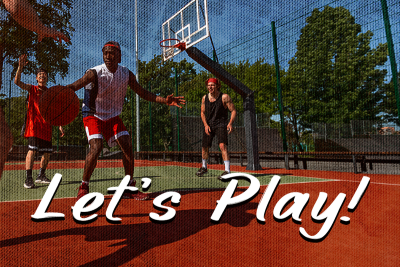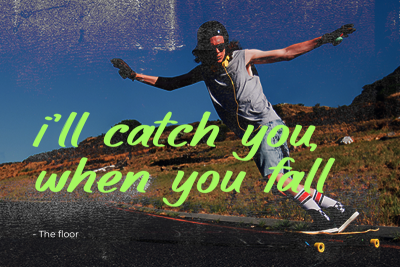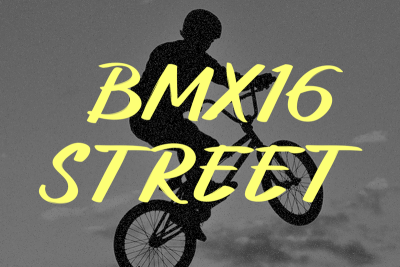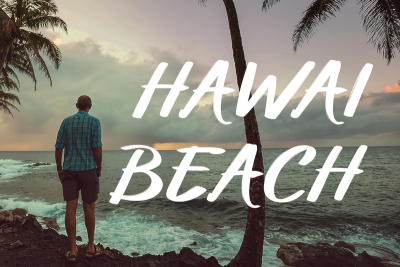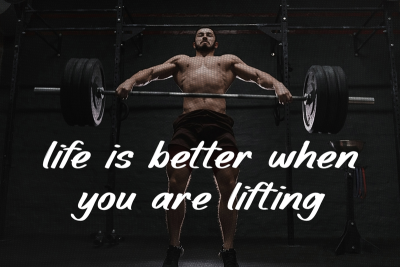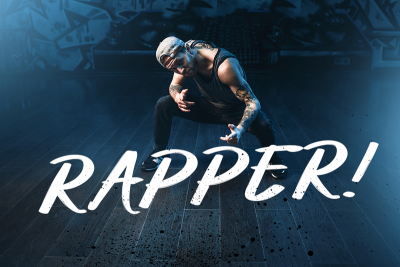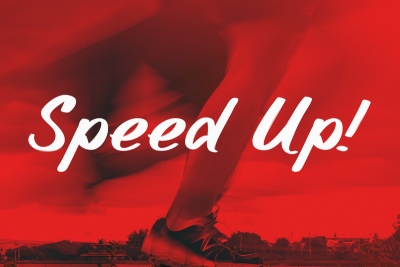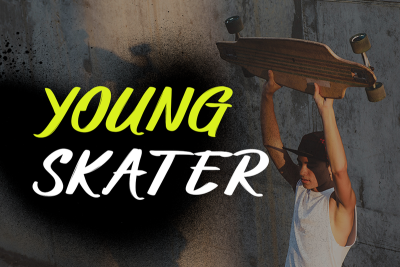
Instagram Font Grinduro is a sleek and modern typeface that exudes style and sophistication. It is perfect for social media and creative branding projects. With smooth, cursive strokes and dynamic curves, it offers an elegant yet bold personality that grabs attention. This font blends classic script elements with a contemporary twist, making it versatile for various applications.
With its polished lettering, Grinduro is ideal for Instagram graphics where visual appeal is essential. Its graceful flow creates a sense of movement and energy, making it perfect for crafting headlines, captions, and promotional content. Despite its stylish design, the font maintains excellent clarity, ensuring your message stands out on any platform.
Grinduro caters to creatives and professionals across different fields. Social media managers and influencers will find it invaluable for polished Instagram posts, stories, and reels. Its stylish design enhances visual content while helping to create a cohesive and professional aesthetic.
Branding experts can use this font to design logos and marketing materials for modern businesses. It works well for beauty brands, fashion lines, boutique shops, and lifestyle products. The font’s elegant style appeals to audiences seeking a trendy and sophisticated touch.
Graphic designers will appreciate its flexibility for crafting posters, invitations, or product packaging. Its flowing style suits both minimalist and ornate designs, making it a reliable choice for various creative needs.
Event planners and content creators can also benefit from Grinduro for creating stylish invitations, banners, or digital visuals. Its energetic vibe fits perfectly for occasions like weddings, parties, or exclusive events, adding a memorable flair to their presentations.
In conclusion, the Instagram Font Grinduro is a contemporary typeface that combines elegance and functionality. Whether enhancing an online presence or designing branded visuals, this font ensures your work stands out and makes a lasting impression.